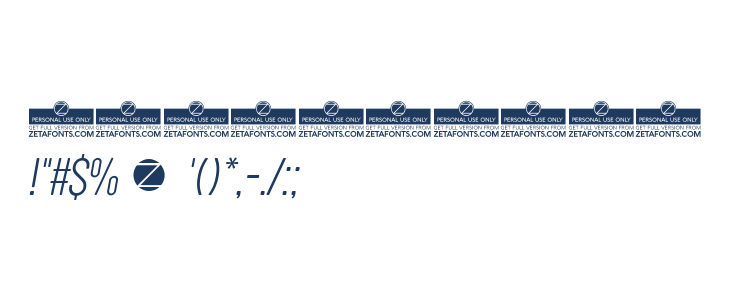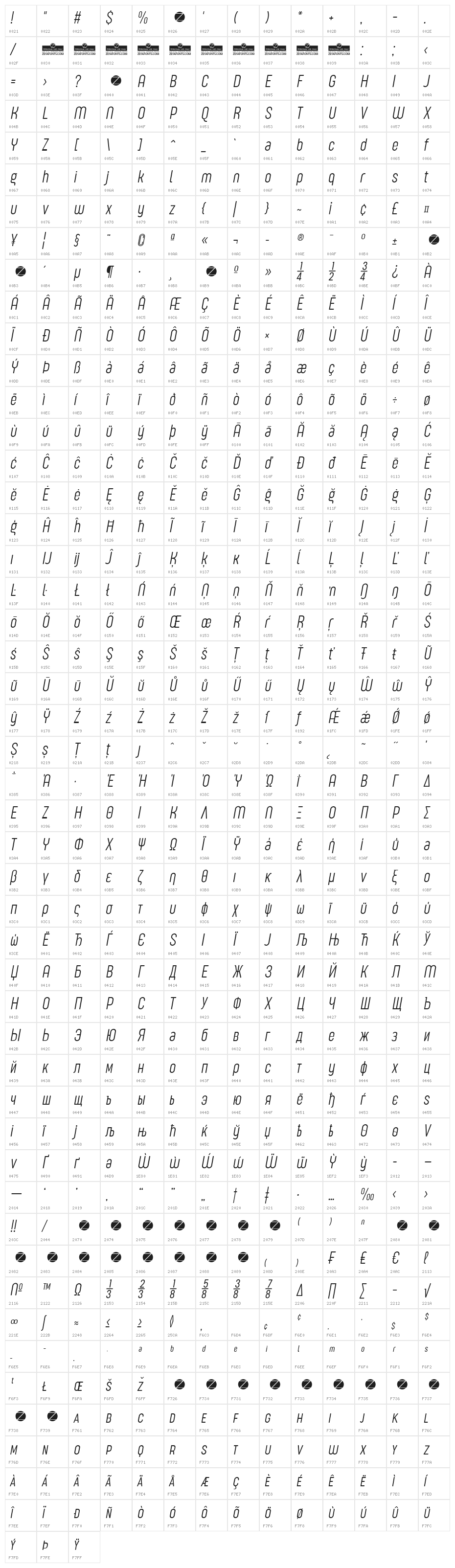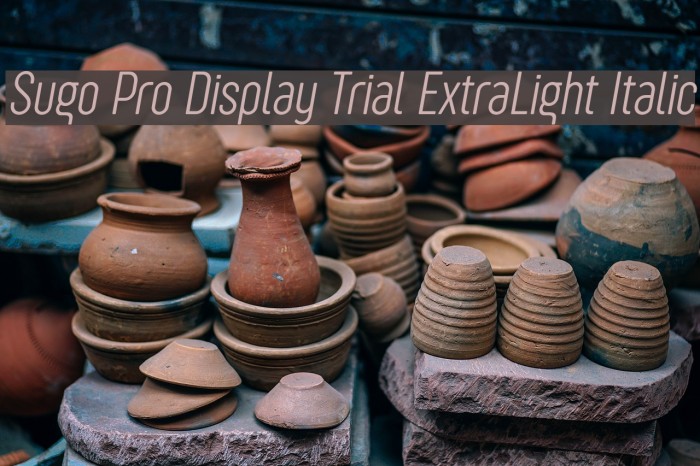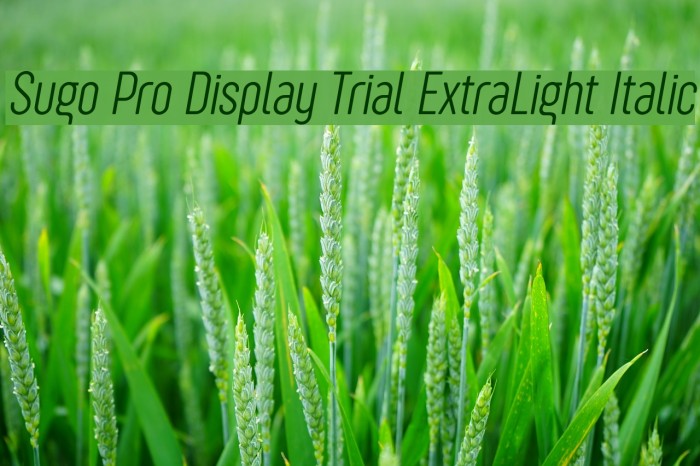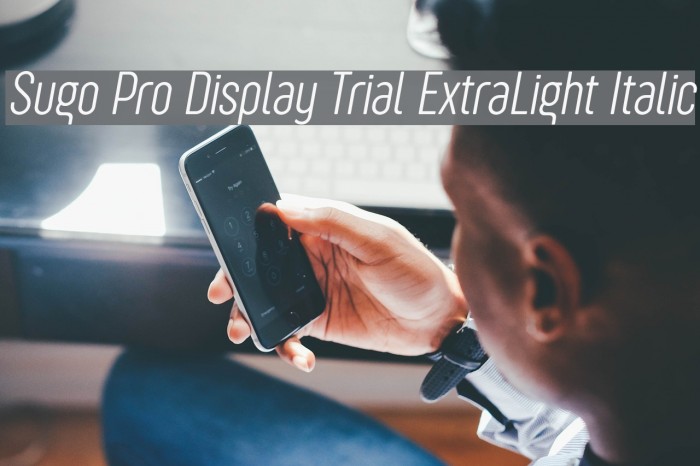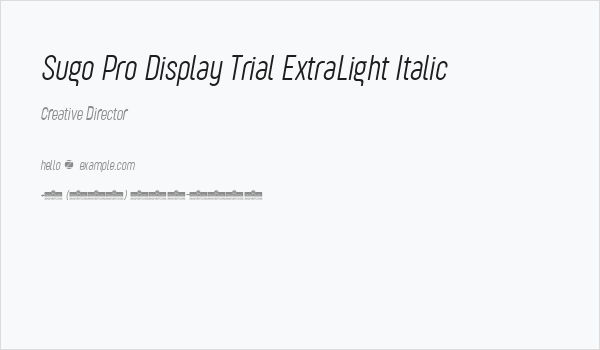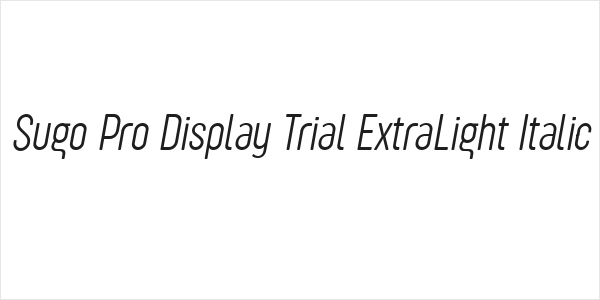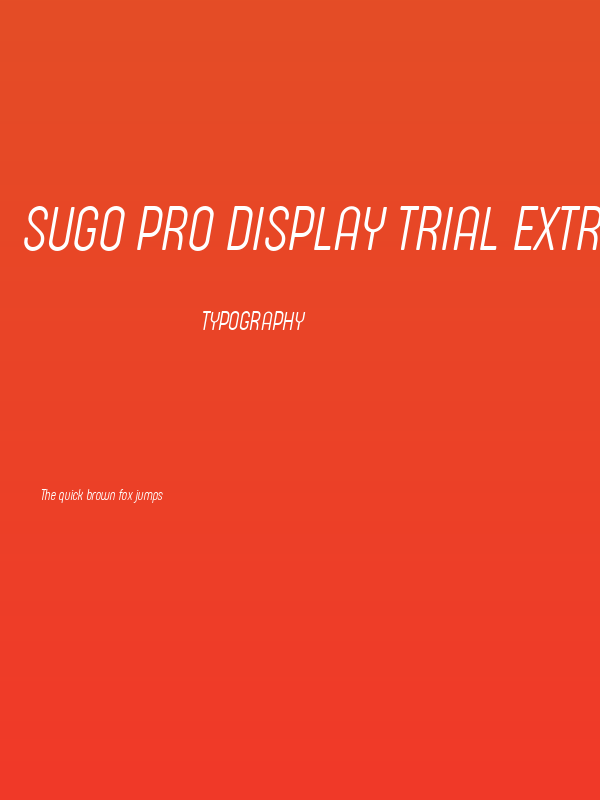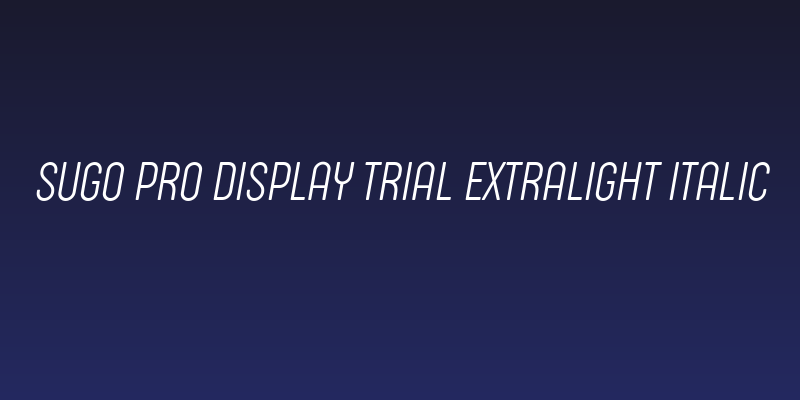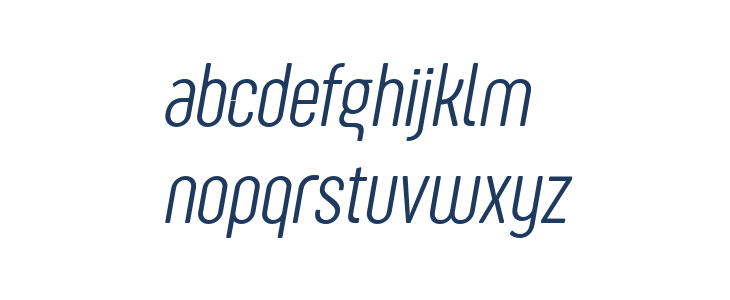
Sugo Pro Display Trial ExtraLight Italic Font
Sugo Pro Display Trial ExtraLight Italic Description
This typeface presents a sleek and modern aesthetic with its elongated, narrow letterforms and subtle curves. The characters are designed with a consistent stroke width, contributing to a clean and streamlined appearance. The italic style adds a dynamic and forward-leaning quality, enhancing its contemporary feel. The font's extra light weight gives it an airy and elegant touch, making it suitable for sophisticated design projects. The spacing between characters is balanced, ensuring readability while maintaining its stylish look. The inclusion of special characters and numbers complements its versatility for various applications.
| Proposed Projects | Ideal for fashion magazines, modern branding, elegant invitations, and minimalist web design. |